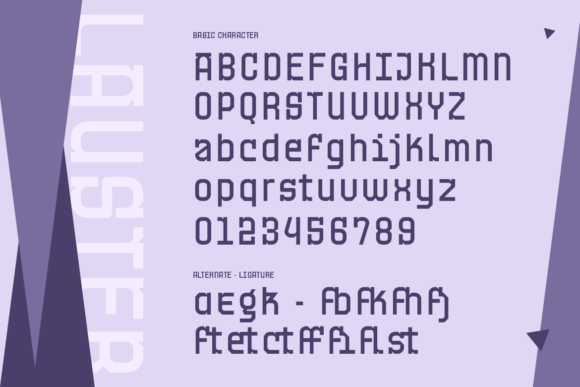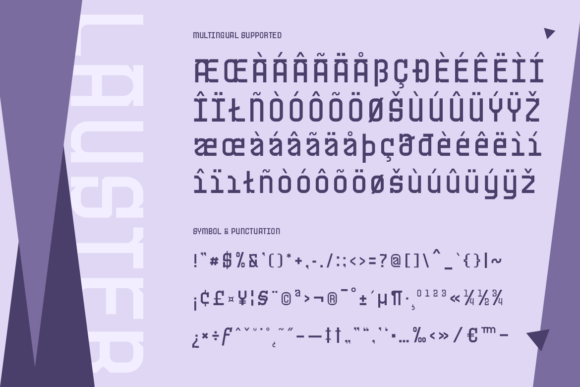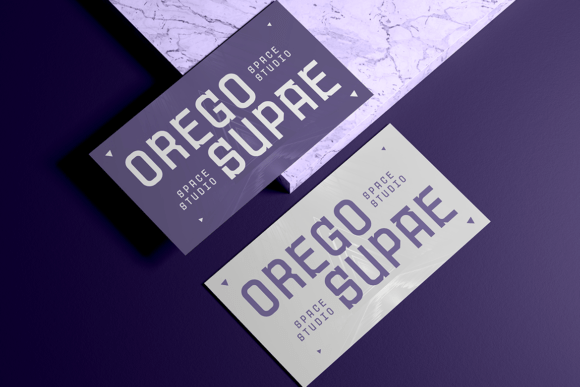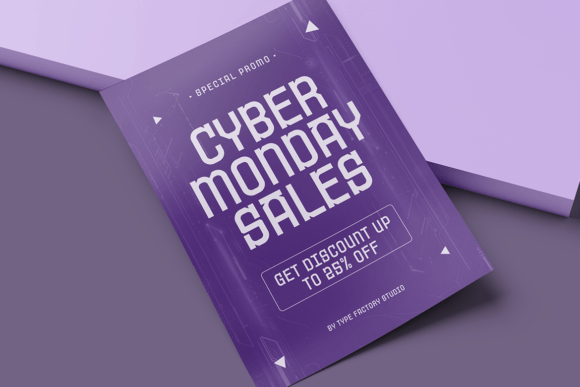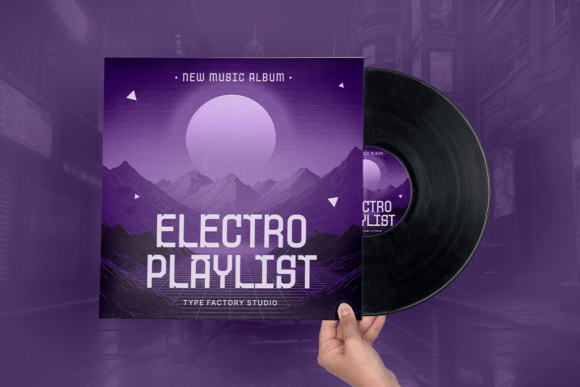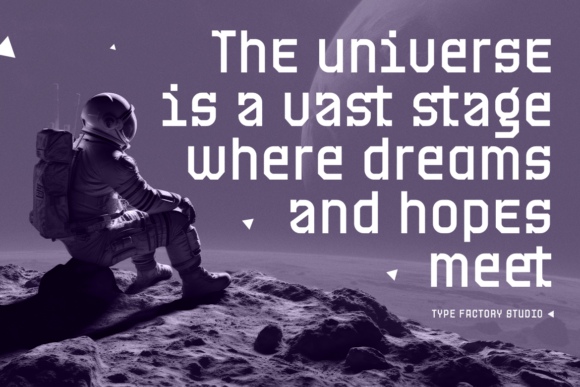
Introduction to Lauster Font
As you stare at your computer screen, surrounded by lines of code and design concepts, do you ever wish for a font that could elevate your creative project to the next level? A font that exudes modernity, precision, and a hint of futurism? Look no further than the Lauster Font, a sleek and powerful monospaced sans serif typeface designed to revolutionize your digital design.
With its structured and geometric approach, Lauster Font is a game-changer for designers seeking to create high-quality visual compositions that command attention. Its monospaced system ensures alignment precision, making it an ideal choice for grid-based layouts and structured typography. Whether you’re working on a tech branding project, coding theme, or music cover, Lauster Font’s clean and futuristic aesthetic is sure to bring your design to life.
Key Features of Lauster Font
- High-quality design resource ideal for creative projects requiring a modern touch.
- Features a clean and minimalist design aesthetic, perfect for modern branding, typography, and creative projects.
- Part of a larger font family, offering flexibility and versatility in design applications.
Honest Review: Lauster Font
- ✨ The font’s transparent background makes it perfect for creative projects where you need to layer text over images or other design elements.
- ✨ The Lauster Font is highly customizable, with a wide range of font sizes and styles to choose from.
- ✨ The font’s clean and modern design makes it perfect for a variety of design projects, from logos to brochures.
- ⚠️ The font may not be as versatile as some other options, and it may not be suitable for all design projects.
- ⚠️ The font’s limited character set may make it difficult to use for certain languages or characters.
Overall, I’m impressed with the Lauster Font. It’s a great design resource for anyone looking for a high-quality font with a transparent background. While it may have some limitations, it’s definitely worth considering for your next creative project.
Tips for Getting the Most Out of Lauster Font
Here are a few tips for getting the most out of Lauster Font:
- Combine Lauster Font with other design elements to create visually appealing graphics.
- Use Lauster Font in conjunction with a transparent background to create a unique and eye-catching design.
Lauster Font is perfect for a variety of design projects, including:
- Branding and logo design.
- Graphic design and visual identity.
- Web design and development.
- Print design and advertising.